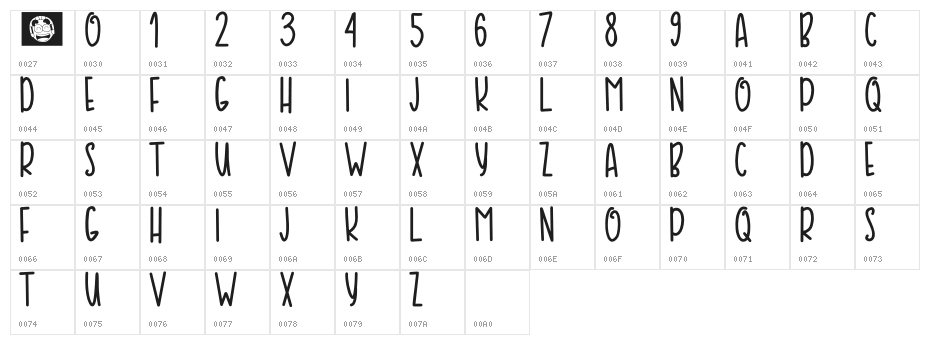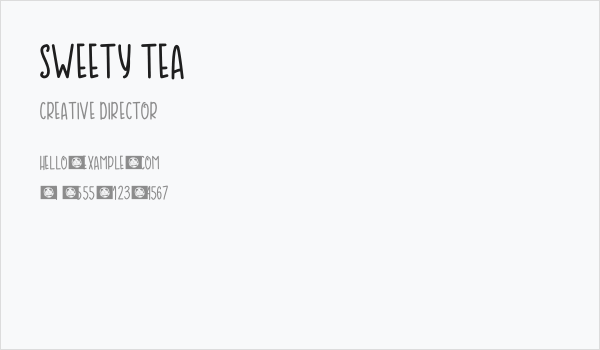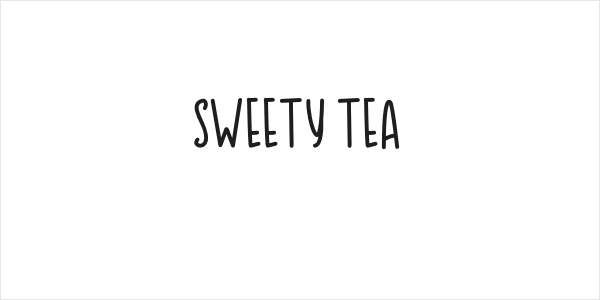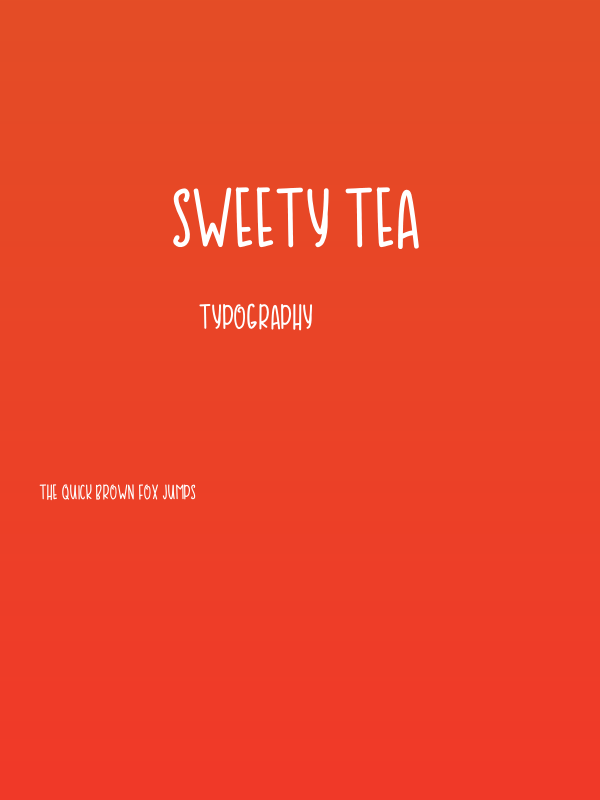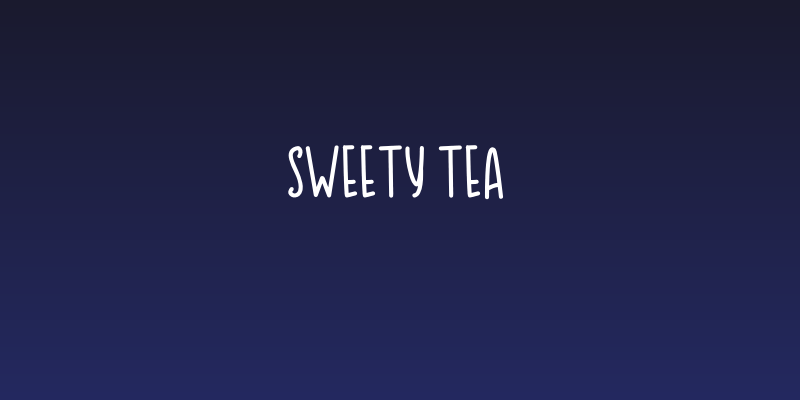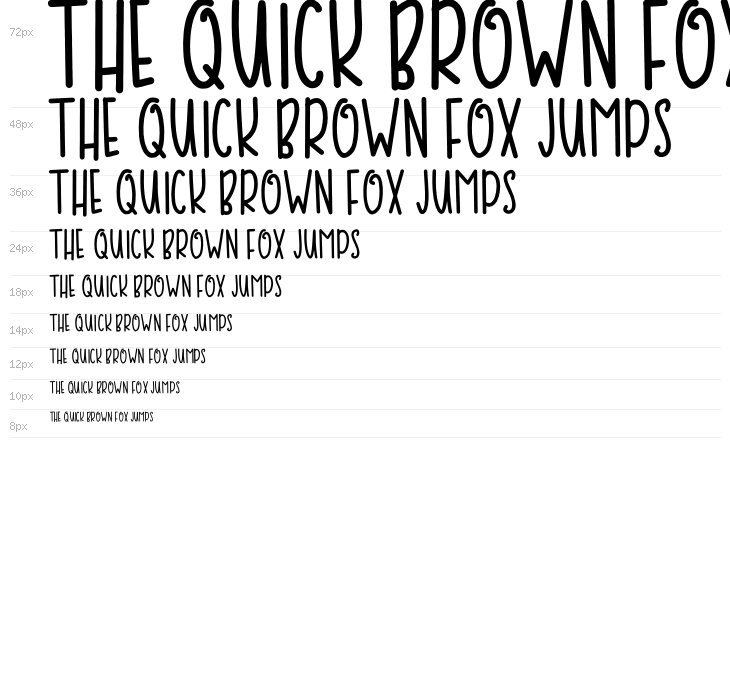
SWEETY TEA Font
SWEETY TEA Description
This font features a playful and casual handwritten style, characterized by its tall, narrow letters and slightly uneven strokes. The uppercase and lowercase letters maintain a consistent width, giving it a cohesive look. The numbers are similarly styled, with a quirky charm that adds to the font's overall personality. The strokes are smooth and rounded, providing a friendly and approachable feel. This font is well-suited for projects that require a personal touch, such as invitations, greeting cards, or playful branding. Its unique style makes it stand out, while still being highly readable.
| Proposed Projects | Ideal for invitations, greeting cards, playful branding, and personal projects. |